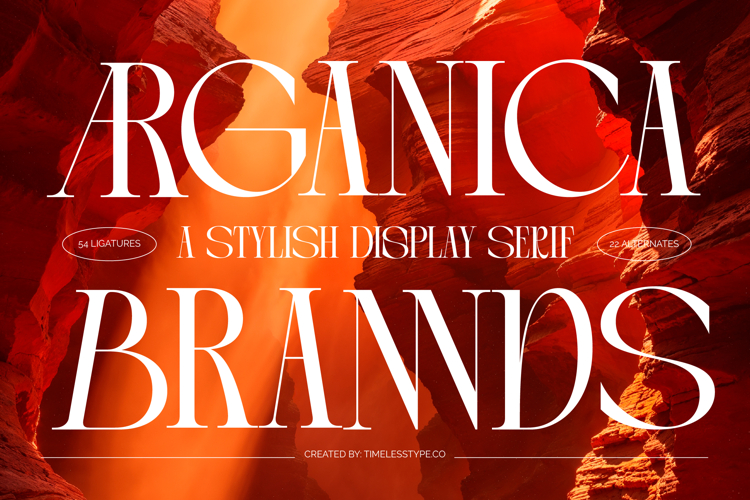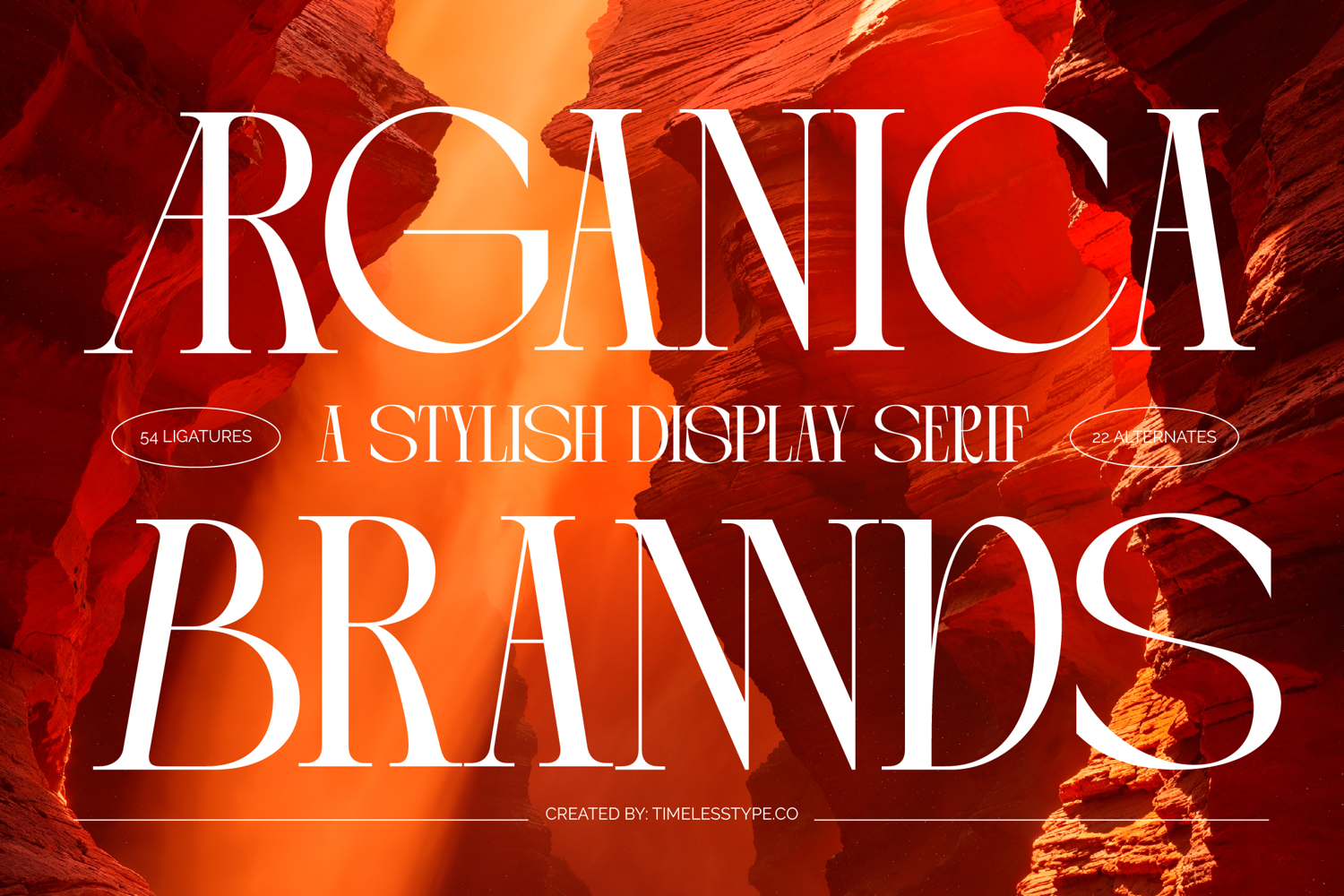
Arganica Brannds - Stylish Display Serif Font
Elevate your visual storytelling with Arganica Brannds - Stylish Display Serif Font, a typeface meticulously crafted for impact and allure. Its striking high-contrast letterforms, slender stems, and refined serifs exude an air of sophistication and timeless elegance. This display serif masterpiece is designed to capture attention, imparting a luxurious and distinguished presence to any design it graces, making it an essential asset for discerning creatives.
Unlock boundless creative potential with the rich OpenType features embedded within Arganica Brannds - Stylish Display Serif Font. Boasting 54 elegant ligatures and 22 distinctive alternates, this font offers unparalleled customization and design flexibility. These sophisticated stylistic options empower designers to craft truly unique wordmarks, headlines, and logos, ensuring your brand identity stands out with a bespoke, artistic flourish.